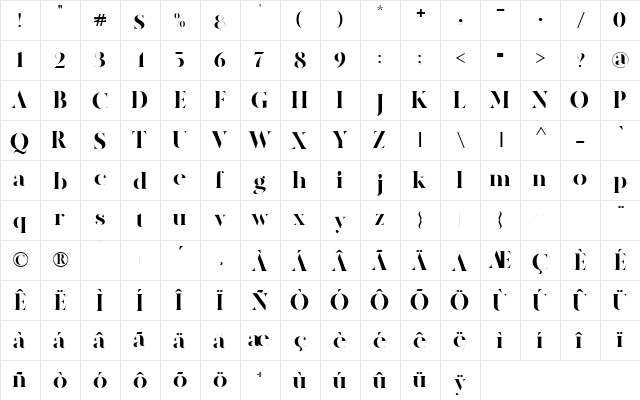
amigh Regular
| Foundry | 177Studio |
| Designer | 177Studio |
Design Context for amigh Typeface
amigh is a composed and adaptable typeface that performs quietly and consistently across a wide range of design contexts.